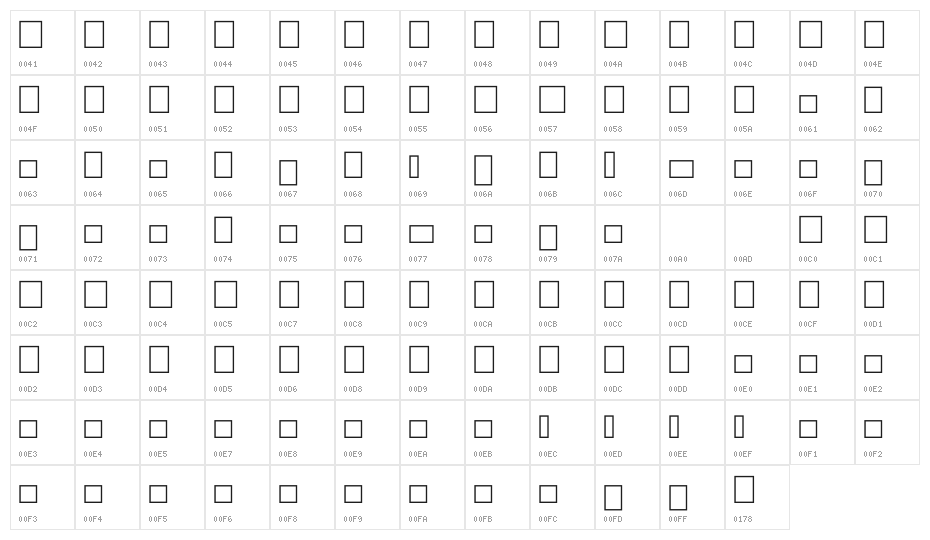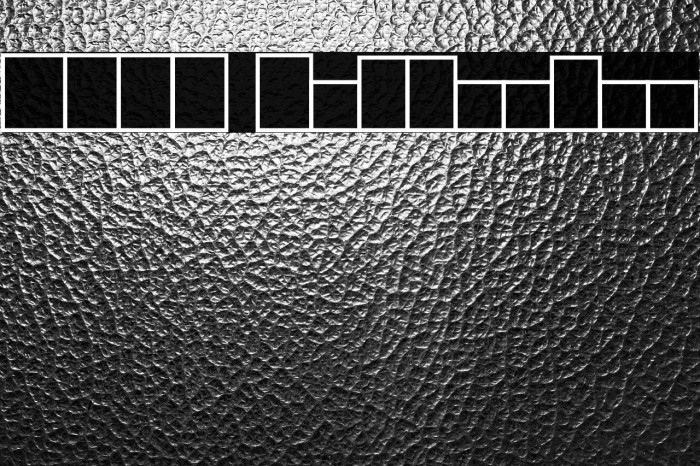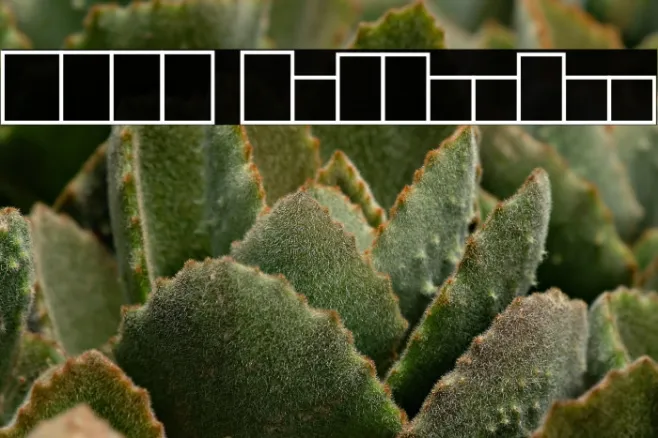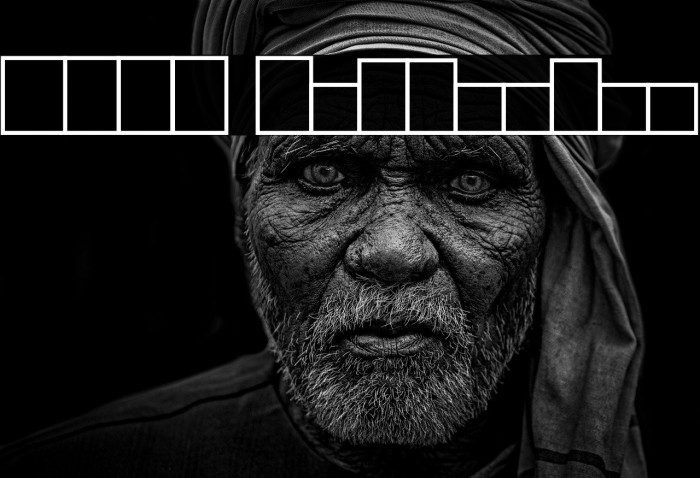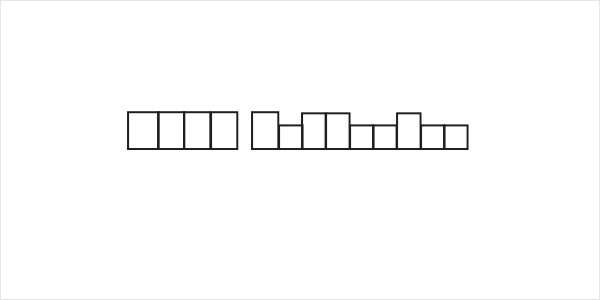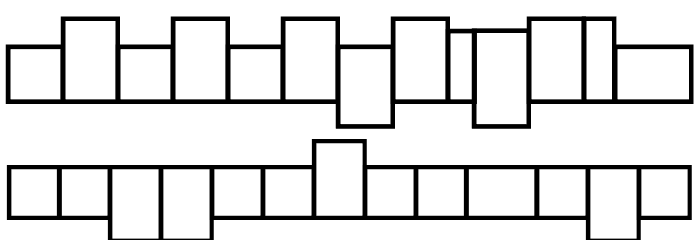
VRYN Letterbox Font
VRYN Letterbox Description
This design features a unique and abstract representation of letters and symbols, characterized by a series of rectangular boxes and intersecting lines. The layout suggests a modern, geometric style that emphasizes structure and form. Each character is enclosed within a box, creating a uniform and organized appearance. The use of intersecting lines within the boxes adds a layer of complexity and visual interest, making it suitable for creative and artistic projects. The overall design is minimalistic yet striking, offering a contemporary aesthetic that can be adapted for various uses.
| Use Case | Logos, Artistic displays, Modern branding |
| Proposed Projects | Ideal for abstract art projects, modern design themes, and creative branding. |